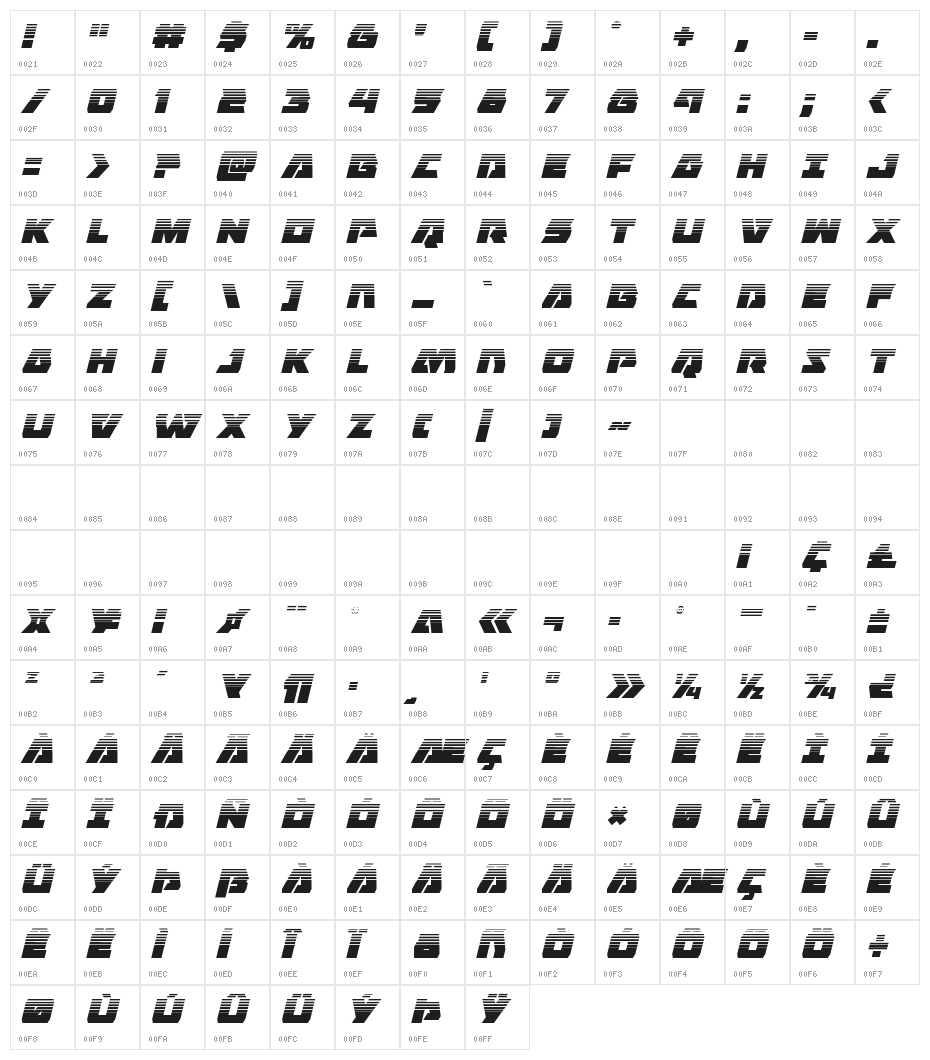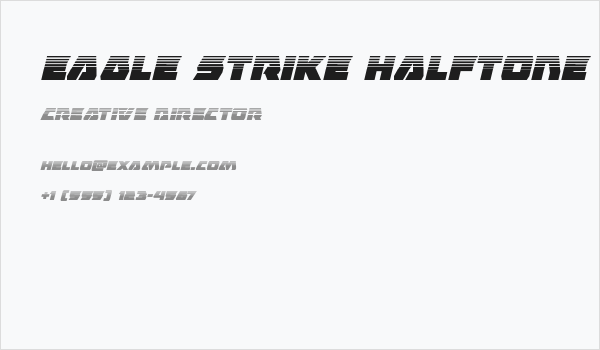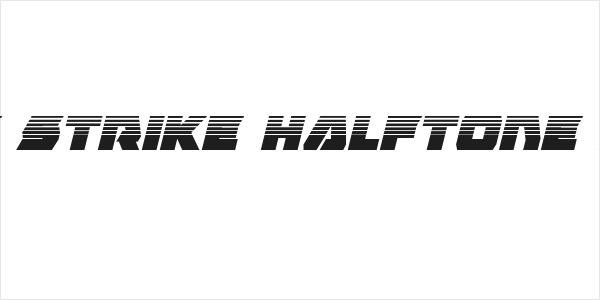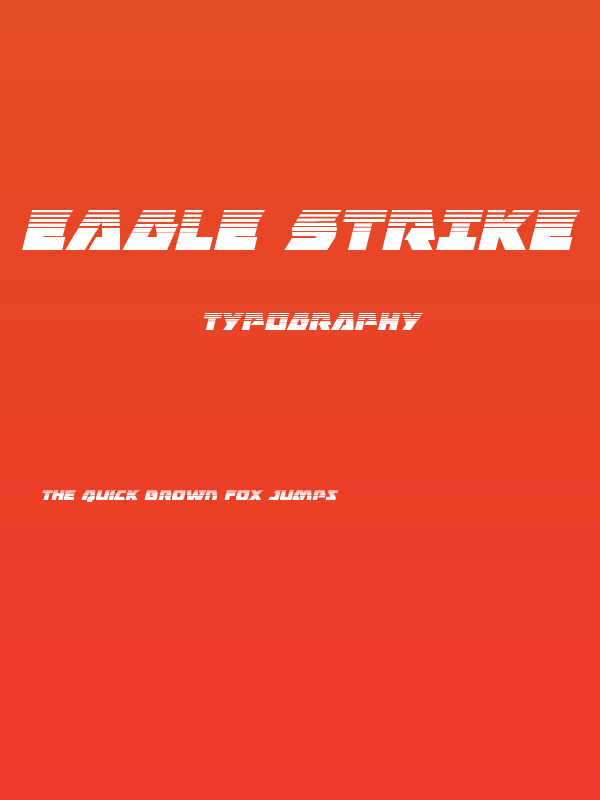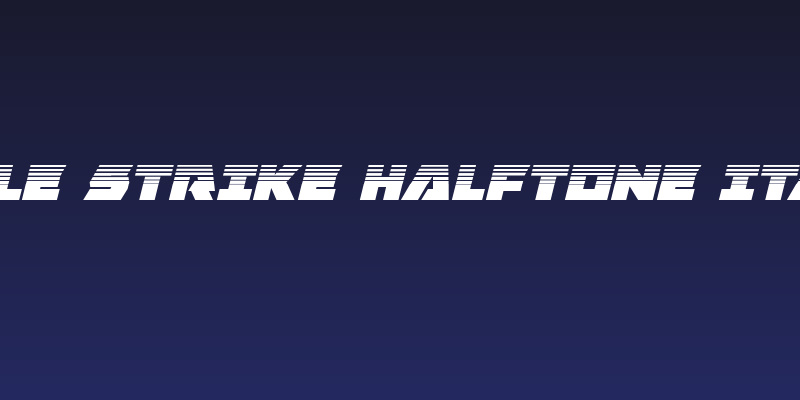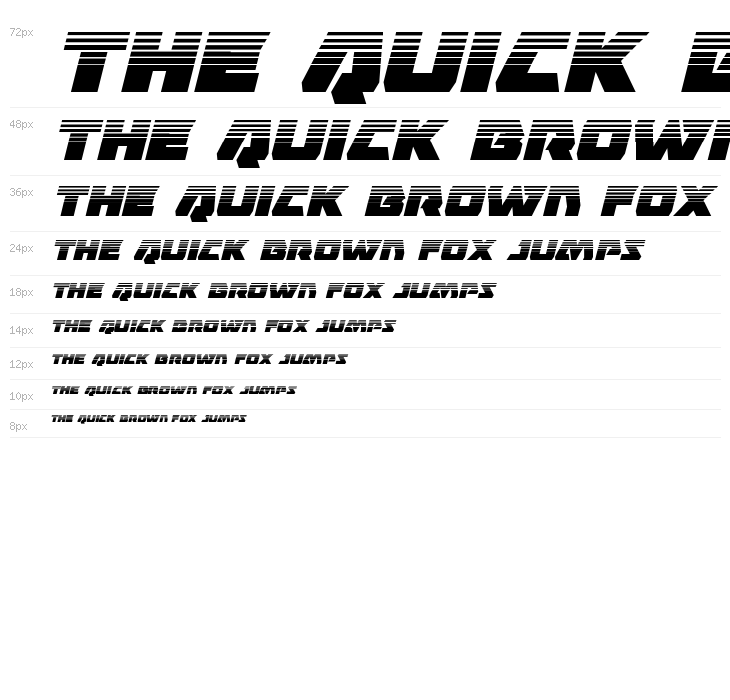
Eagle Strike Halftone Italic Font
Eagle Strike Halftone Italic Description
This font features a bold, dynamic design with a halftone effect that gives it a sense of movement and energy. The characters are italicized, adding a forward-leaning, futuristic look. Each letter is constructed with a series of horizontal lines that create a striking visual impact, making it ideal for attention-grabbing headlines or logos. The uppercase and lowercase letters maintain a consistent style, while the numbers and special characters complement the overall aesthetic. Its unique design is perfect for projects that require a modern and edgy feel.
EAGLE-STRIKE-HALFTONE-ITALIC UPPERCASE
EAGLE-STRIKE-HALFTONE-ITALIC LOWERCASE
EAGLE-STRIKE-HALFTONE-ITALIC OTHER CHARS
| Proposed Projects | Perfect for sports branding, tech company logos, futuristic posters, and video game titles. |